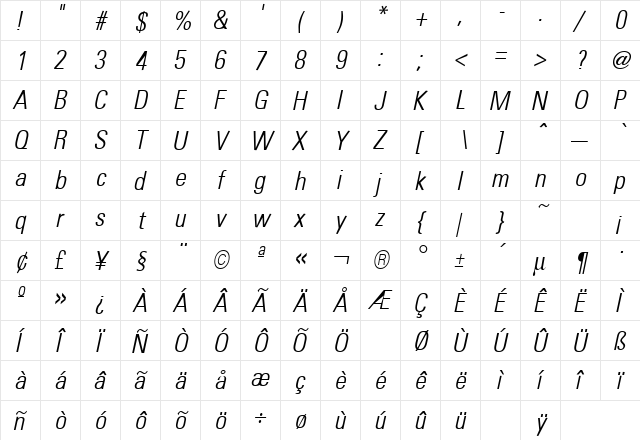
Uniform Condensed Light Italic Font Preview
Design Context for Uniform Condensed Light Typeface
Uniform Condensed Light takes a measured approach to typography — its balanced proportions and neutral character make it a reliable workhorse for both digital and print work. The slanted form adds forward momentum and visual energy. Its slender proportions lend an understated elegance to any composition. Its narrow stance lets it pack a punch even in space-constrained designs.
Pro Tip: Try Uniform Condensed Light for annotation and caption copy alongside an upright companion — the contrast in angle creates a dynamic but ordered typographic system.